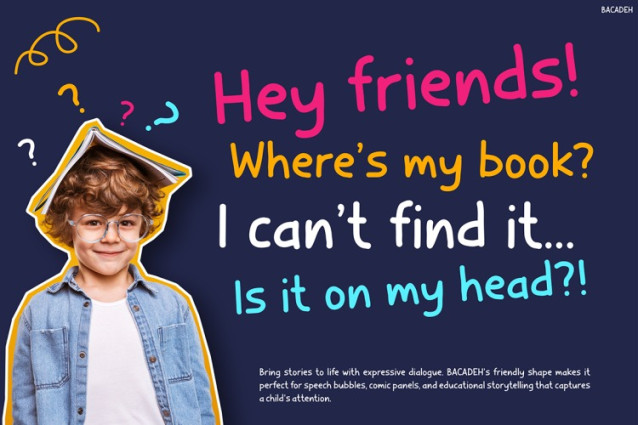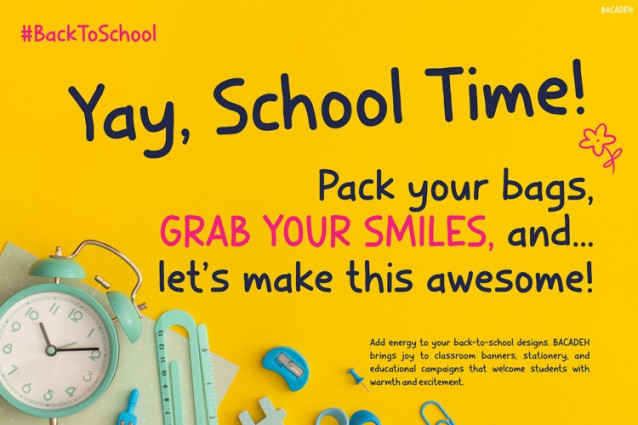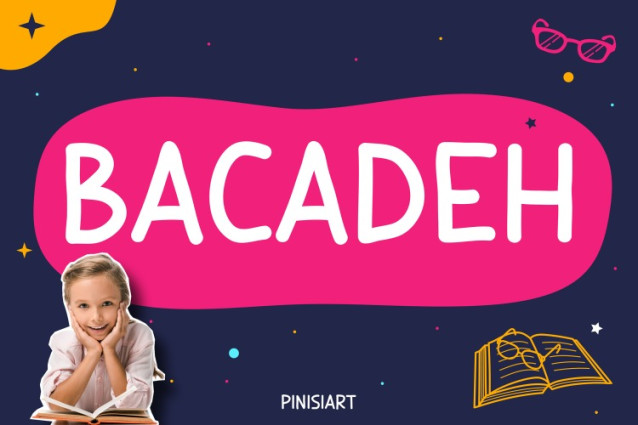
Bacadeh Font
Bacadeh Font is a delightful and lively typeface that instantly captures attention with its hand-drawn aesthetic and joyful energy. From the first glance, you’ll notice its rounded edges and bouncy character spacing, which evoke a sense of innocence and creativity. Because of its whimsical design and friendly curves, this font becomes an ideal choice for projects aimed at children. Whether you’re creating storybooks, educational posters, or branding for kids’ products, Bacadeh adds a personal and engaging touch.
Moreover, what sets Bacadeh apart is its versatility. Not only does it look fun, but it also maintains excellent legibility—making it easy on young readers’ eyes. The playful yet clear letterforms allow it to be both decorative and functional, bridging the gap between fun and readability. Additionally, each character seems to dance off the page, helping to stimulate imagination and spark curiosity in any setting.